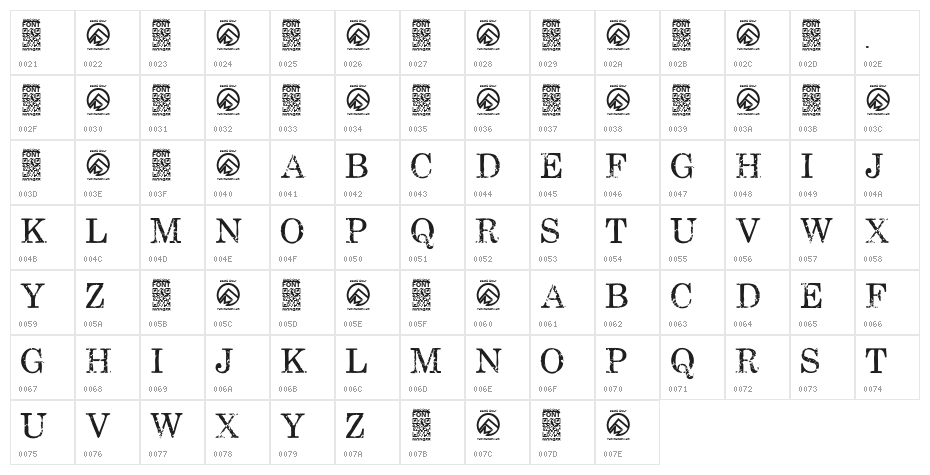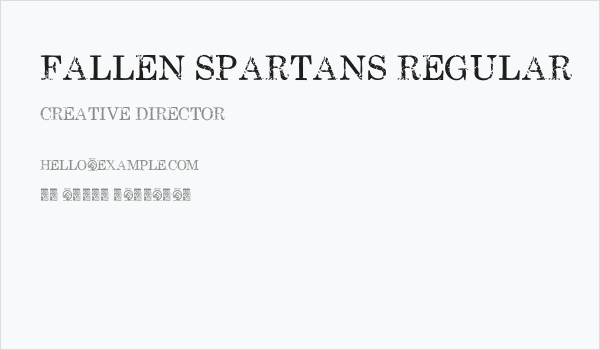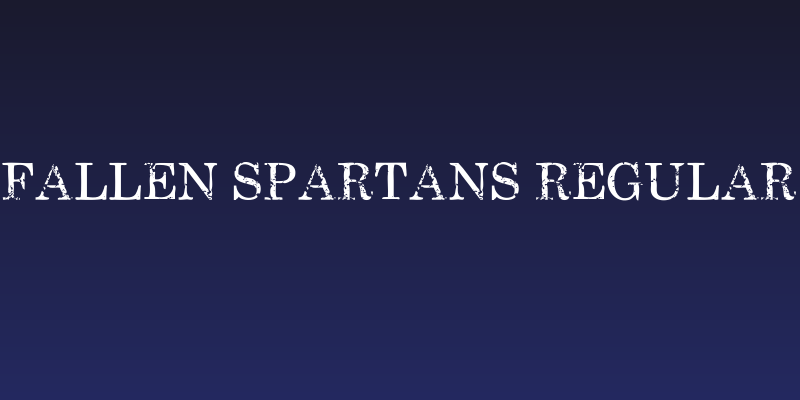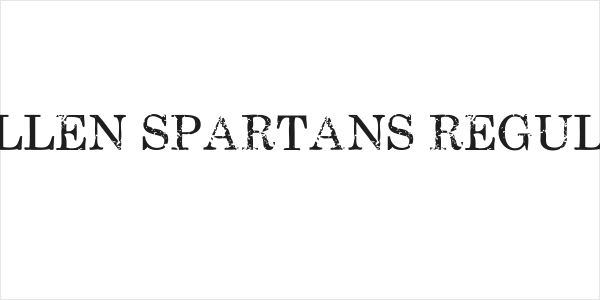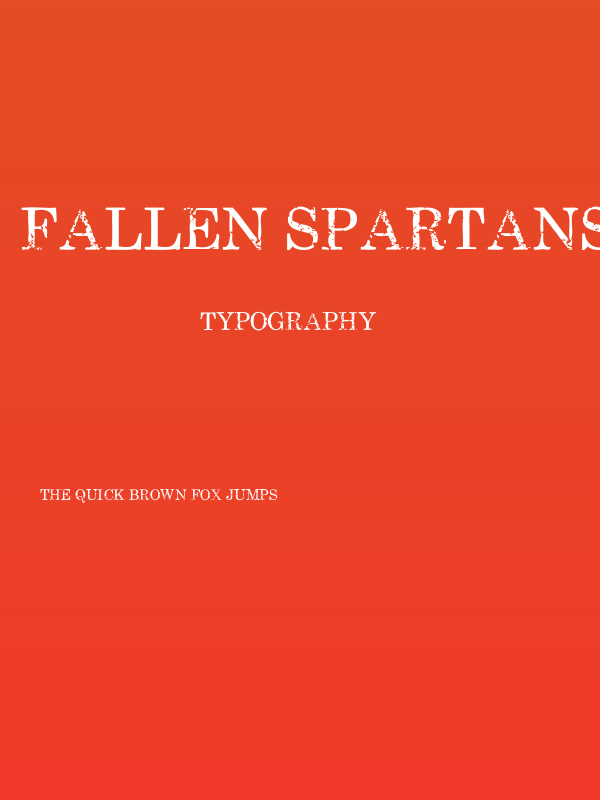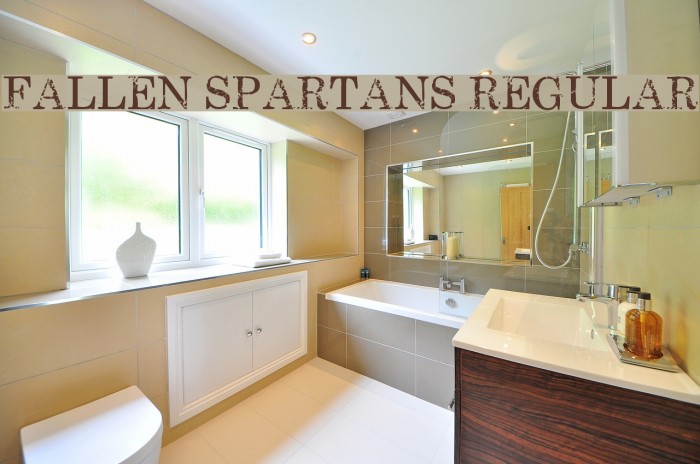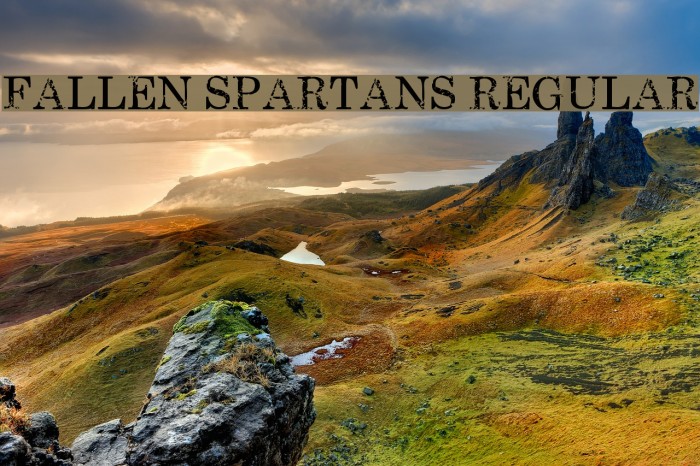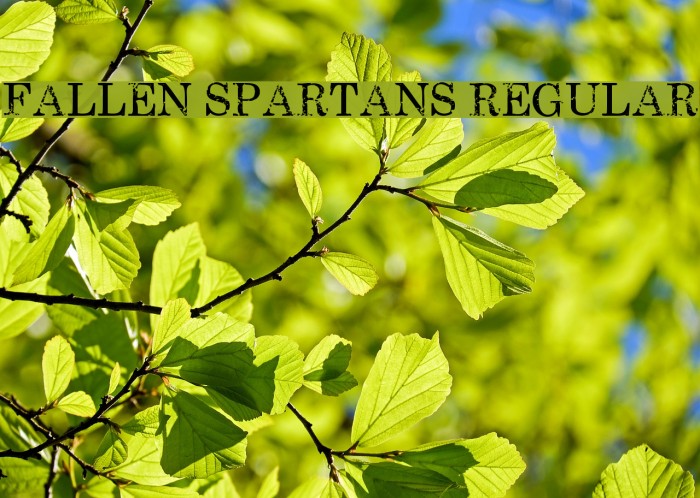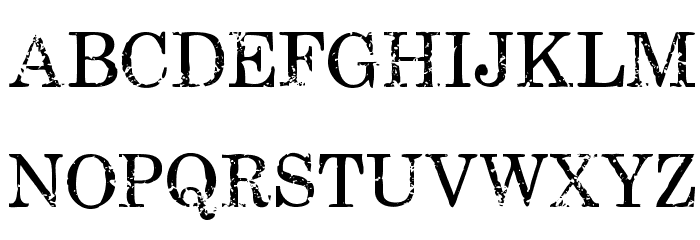
Fallen Spartans Regular Font
Fallen Spartans Regular Description
This font features a distressed, grunge style with a bold and rugged appearance. The uppercase letters are characterized by rough edges and a textured look, giving them a weathered and worn feel. The design evokes a sense of strength and resilience, reminiscent of ancient stone carvings or battle-worn armor. The font's unique aesthetic makes it stand out, with each letter appearing as if it has been through a tumultuous journey. The overall impression is one of power and endurance, suitable for projects that require a strong visual impact.
| Proposed Projects | Ideal for use in posters, video game titles, movie titles, and branding for products that emphasize strength and durability. |